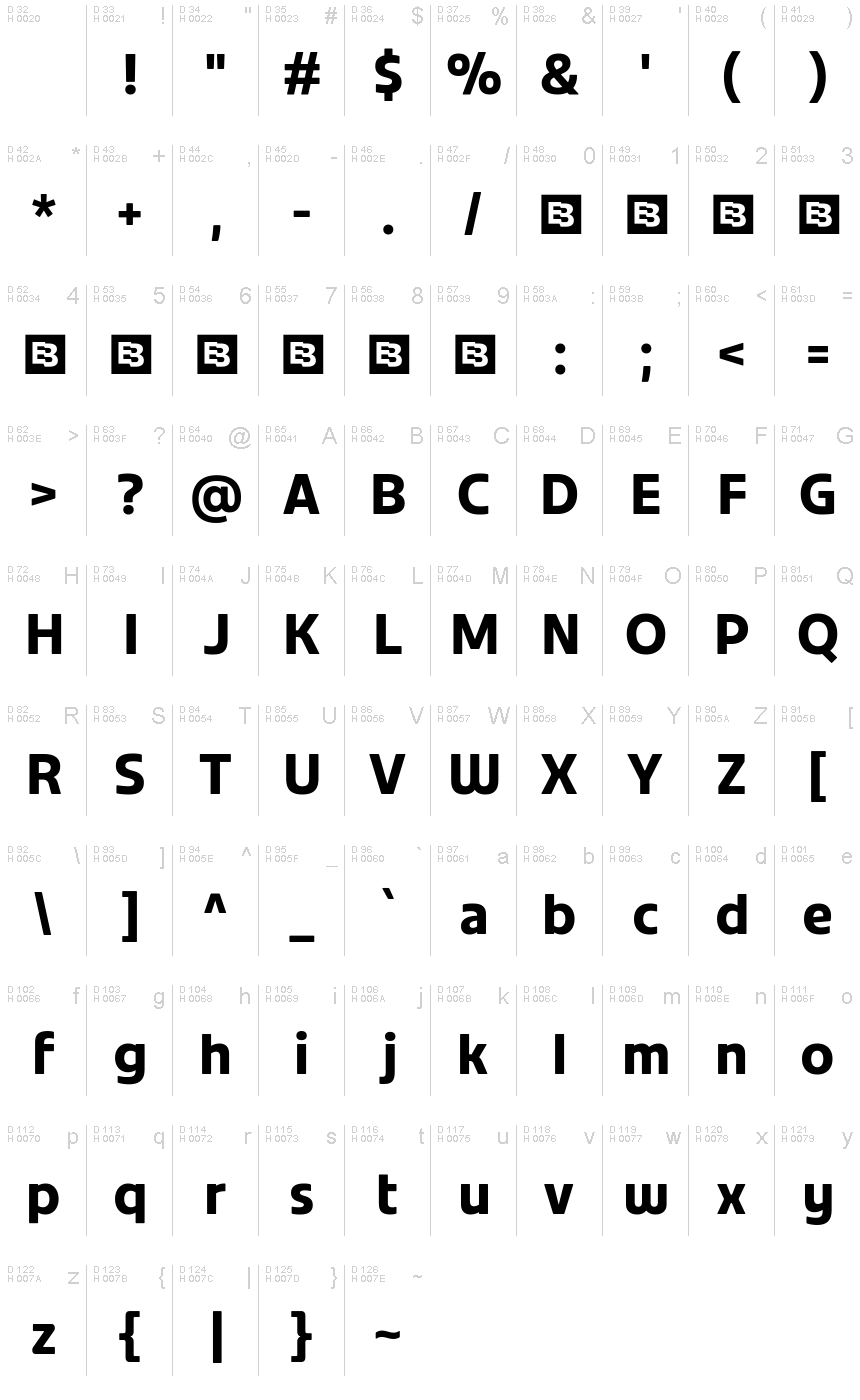
Gresco Trial Bold
Gresco Bold, crafted by Eko Bimantara, is a modern sans serif font that commands attention with its robust and striking design. The bold weight of Gresco Bold imbues it with a strong presence, making it ideal for headlines, branding materials, and signage where clarity and impact are paramount.
Its blend of clean lines and contemporary style offers versatility for various design contexts. Whether creating eye-catching posters or compelling digital content, Gresco Bold ensures readability while imparting a confident aesthetic to your projects.